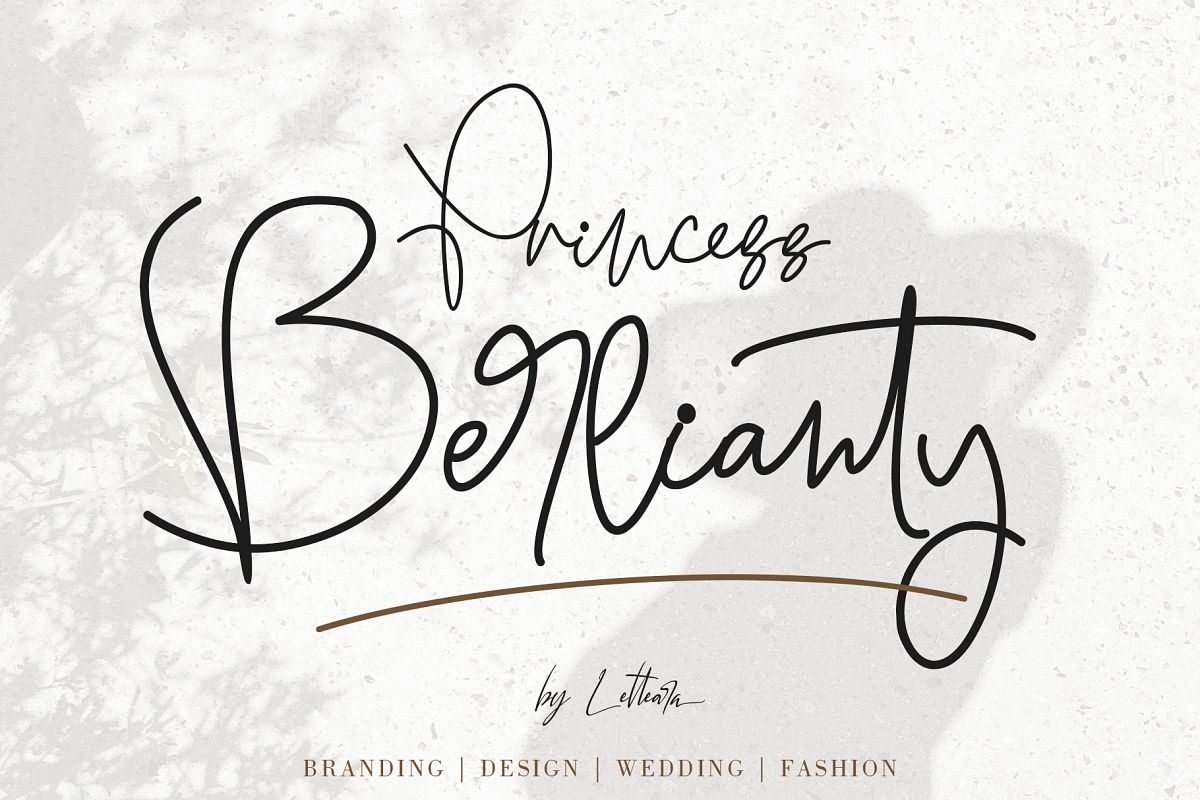
PRINCESS BERLIANTY
Princess Berlianty is a new modern calligraphy monoline script font.
It has a classic and elegant touch and can be used for various purposes such as
headings, logos, invitations, t-shirt designs, greeting cards, posters, labels,
book covers, brochures ,quotes, headlines, titles, thumbnail youtube, and any
other creative design.